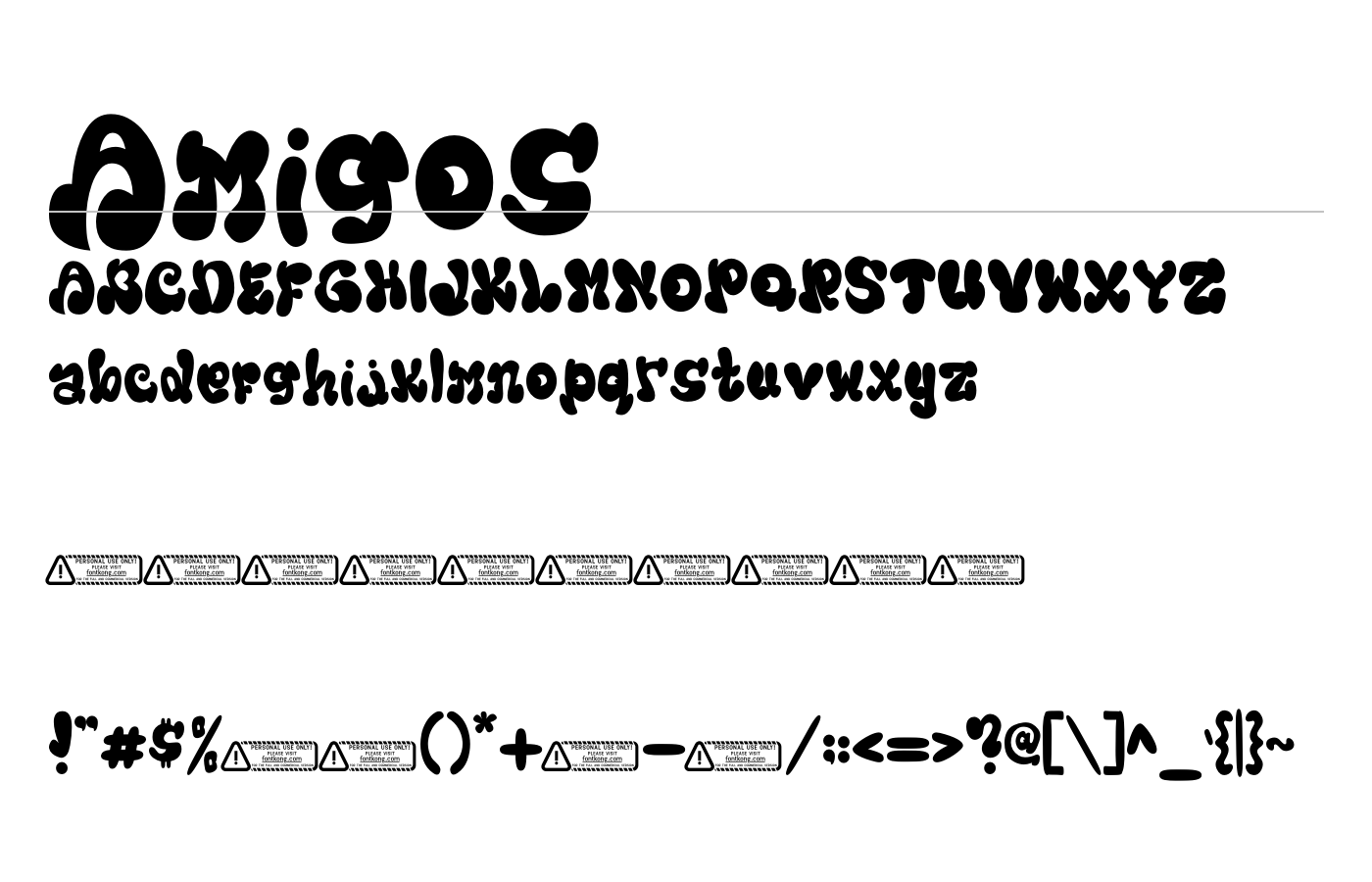
Amigos is a bold, playful display font with thick, rounded shapes and a quirky, hand-drawn feel. Its bubbly letterforms and generous weight make it ideal for fun, informal designs like children's products, party invitations, or casual branding that needs a friendly and approachable vibe. This font works best in headlines or logos where its unique personality can truly shine.
Amigos Font
About Amigos Font
| Font family | Amigos Font |